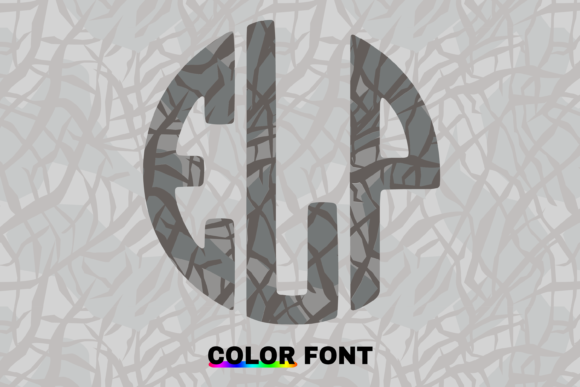
Prepare to be captivated by Elephant Circle, the font that will ignite your creativity like never before! This extraordinary 3-letter monogram font is a playful mix of cute Elephant icons and charming design.
With Elephant Circle, the possibilities are endless. Unleash your inner artist and create magical custom designs that will make your projects stand out. Let this charming font add a touch of whimsy to your DIY crafts, or elevate your online presence with eye-catching designs.
Whether you're crafting personalized gifts, designing enchanting invitations, or simply adding a splash of personality to your creations, Elephant Circle is the perfect choice. Its customizable nature makes it a breeze to use, so you can bring your brilliant ideas to life with ease.
Immerse yourself in the vibrant world of Elephant Circle, a font that truly captures the essence of joy and imagination. Dive into a world where elephants dance among the stars, surrounded by a kaleidoscope of colors.